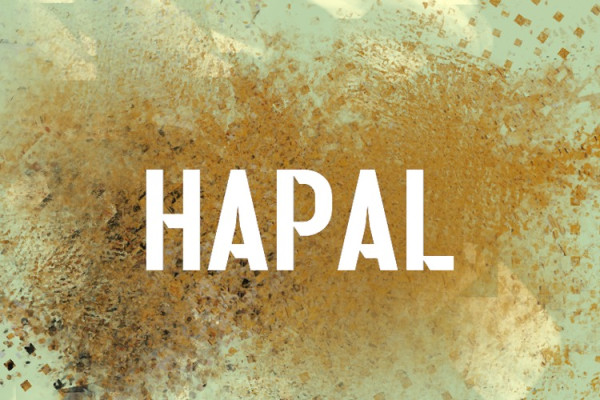
Hapal Font
Hapal Font Free, This bundle features strong, confident and powerful typefaces designed to work great with sports logos, club branding, apparel applications, labels and more.